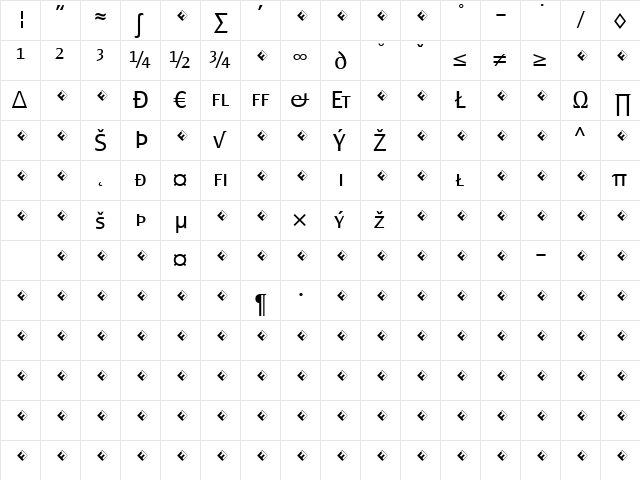
PageSans-LightSCExpert Regular Font Preview
PageSans-LightSCExpert Regular
PageSans-LightSCExpert Regular Font Details
| Foundry | Albert Boton, published by FontShop International for the FontFont Library |
| Designer | Albert Boton |
Design Context for PageSans-LightSCExpert Typeface
PageSans-LightSCExpert is a composed and adaptable typeface that performs quietly and consistently across a wide range of design contexts. The delicate stroke weight brings airiness and refinement to layouts.